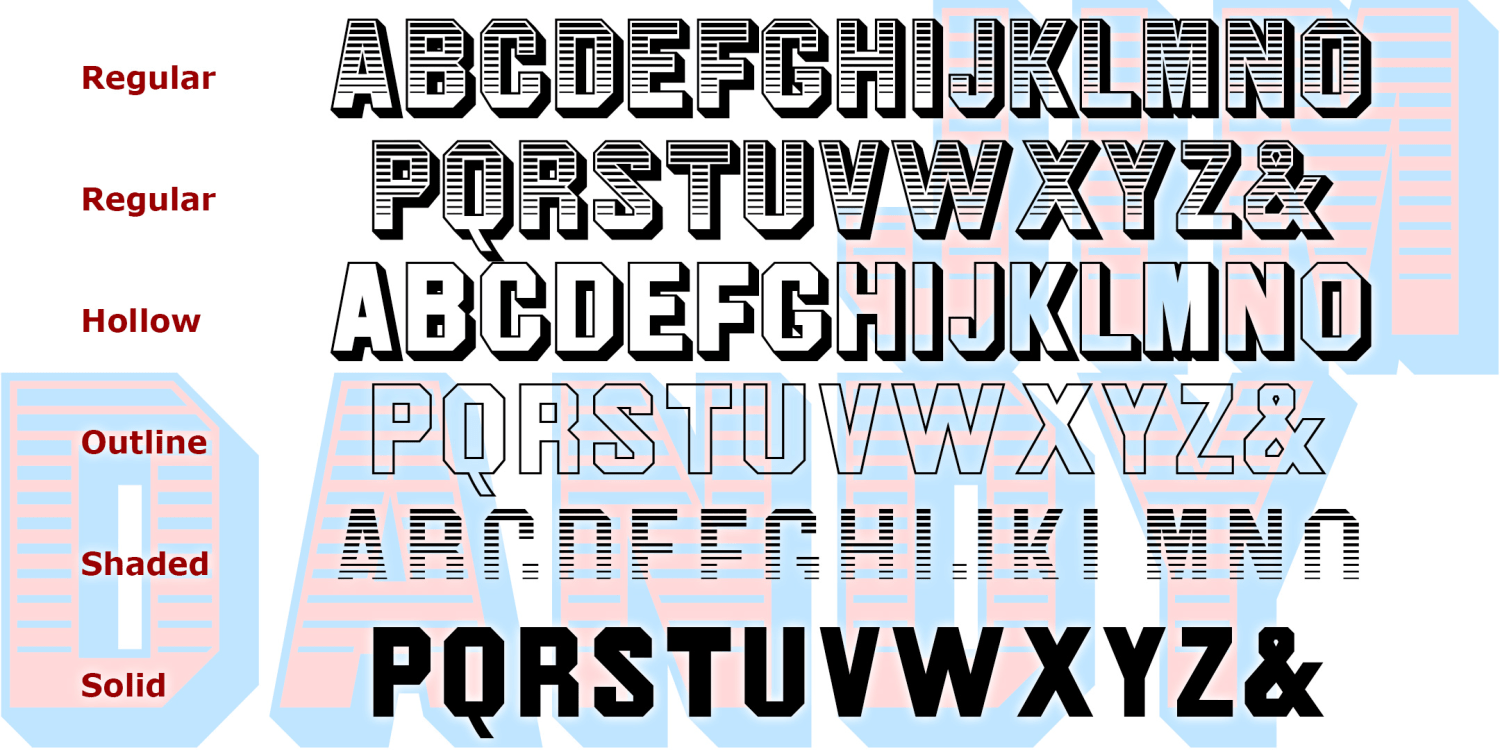
Jim Dandy
JIM DANDY was inspired by a font that originated in the 1850’s as Gothic Shade from the Dickinson Type Foundry. It boldly suggests a political broadside, a circus poster, or a Western sign. Later this font would be known as Tombstone and Jim Crow as it was subsequently issued by other foundries in other formats.
The Regular font is equivalent to the original. I’ve also created component fonts for the shading, shadows, and other elements that can be used separately or layered in different colors.